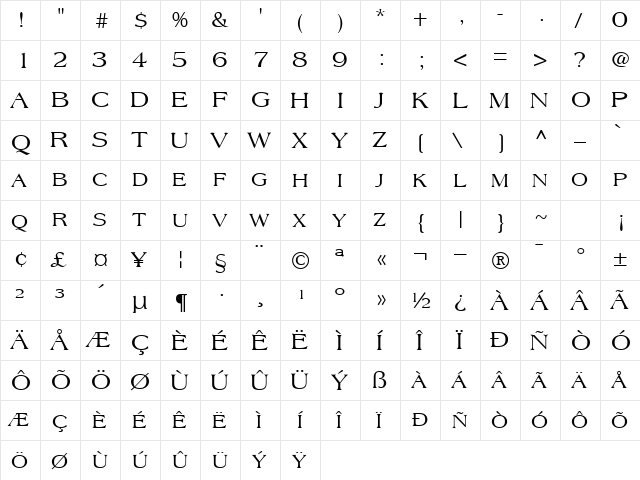
AmalcanExpert Normal Font Preview
AmalcanExpert Normal
AmalcanExpert Normal Font Details
Design Context for AmalcanExpert Typeface
AmalcanExpert offers clean, dependable letterforms without strong stylistic allegiance, making it a practical choice for designers who need flexibility.